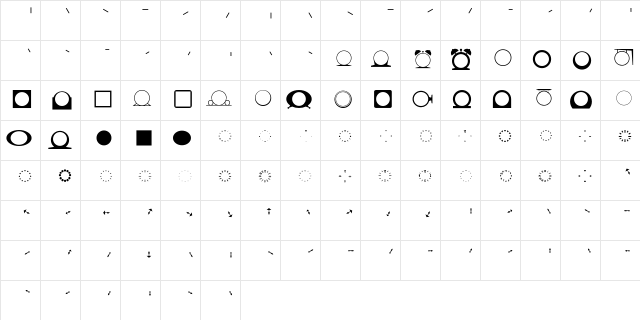
AnytimeNow Regular
Design Context for AnytimeNow Typeface
AnytimeNow is a composed and adaptable typeface that performs quietly and consistently across a wide range of design contexts.